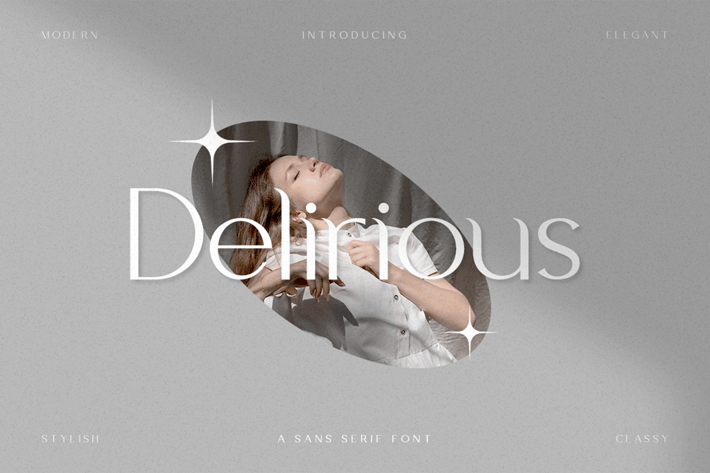
Delirious - Business Font
Delirious is a minimal and neat sans serif font. It can easily be matched to an incredibly large set of projects, so add it to your creative ideas and notice how it makes them stand out!